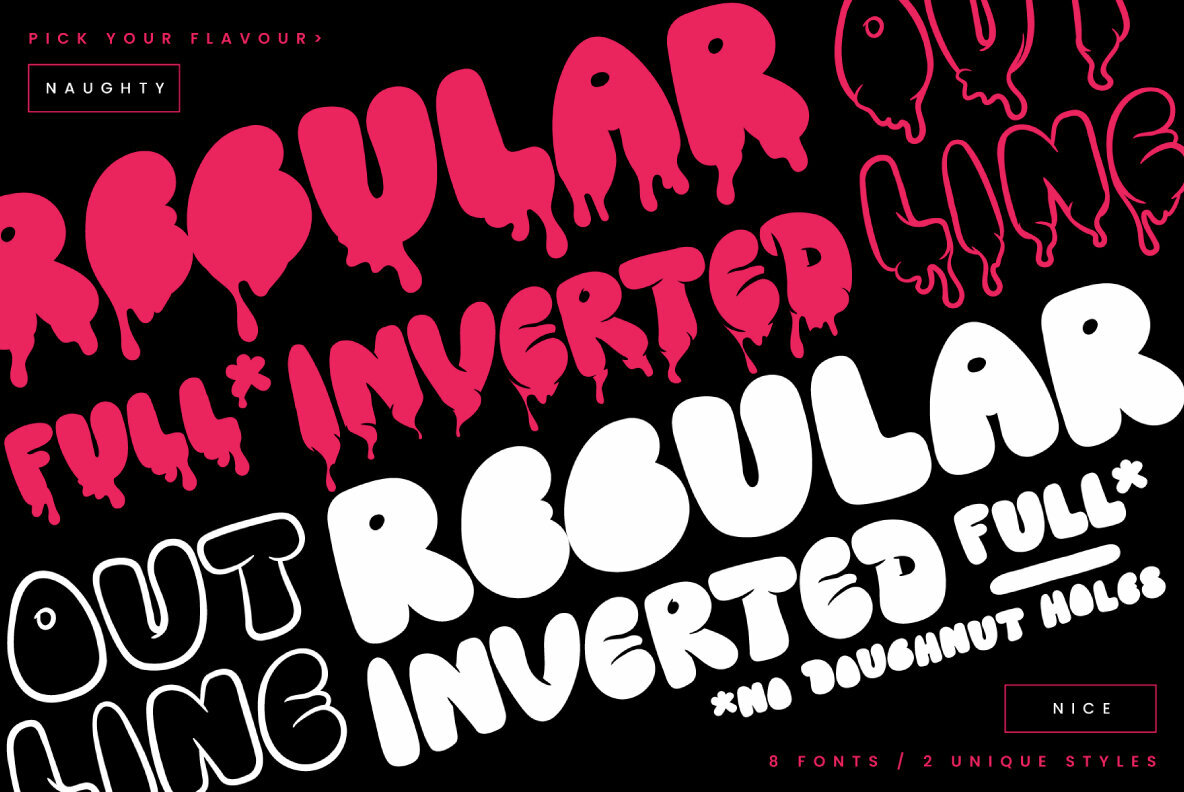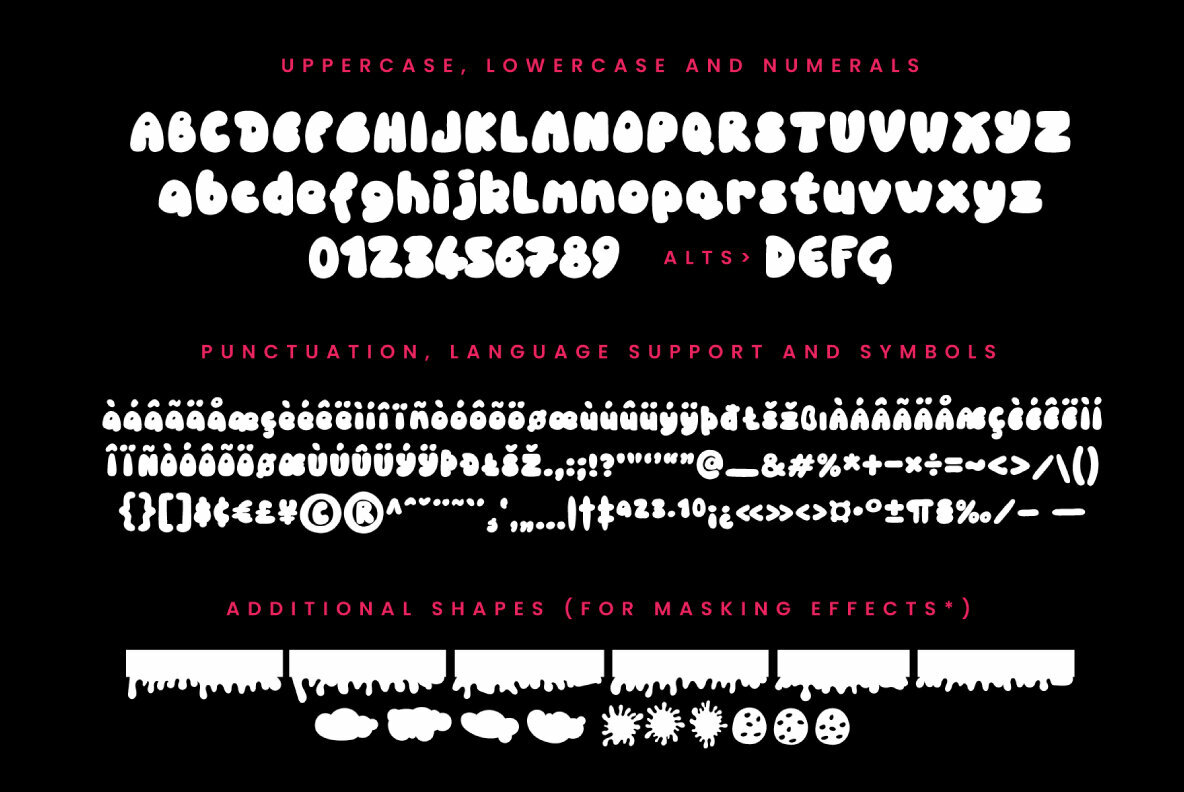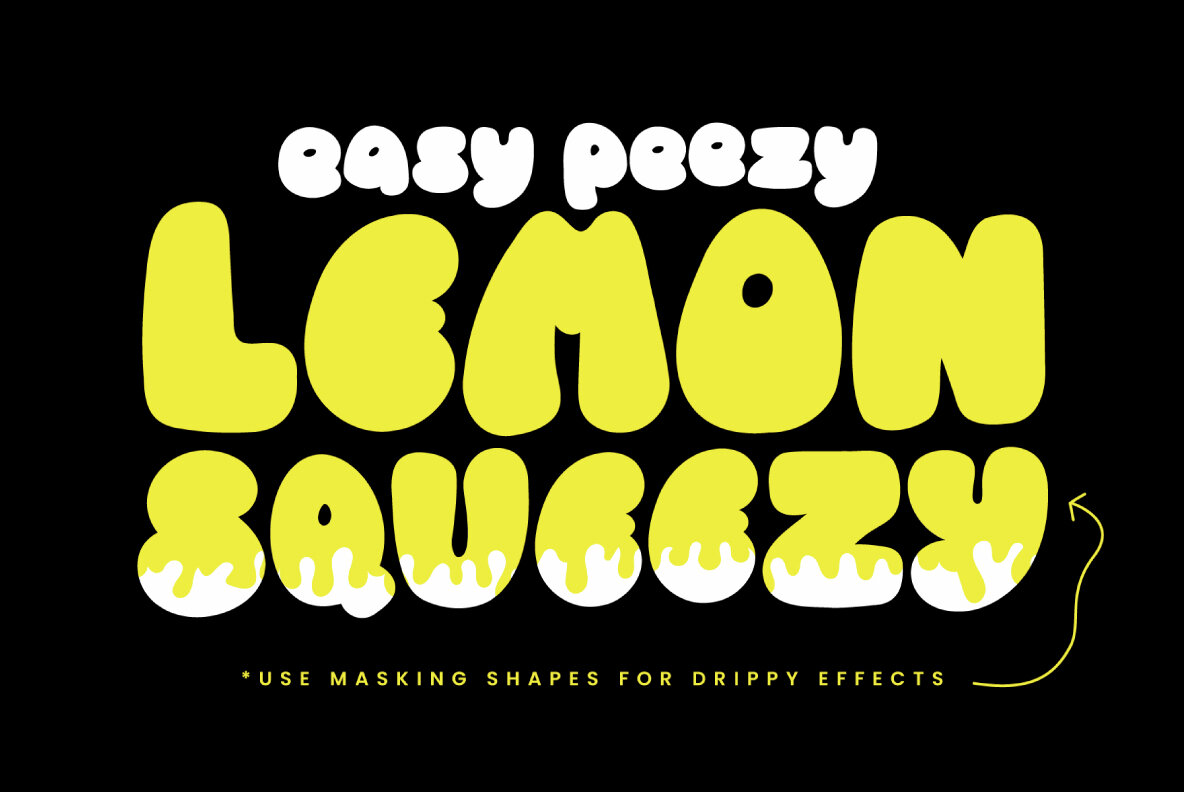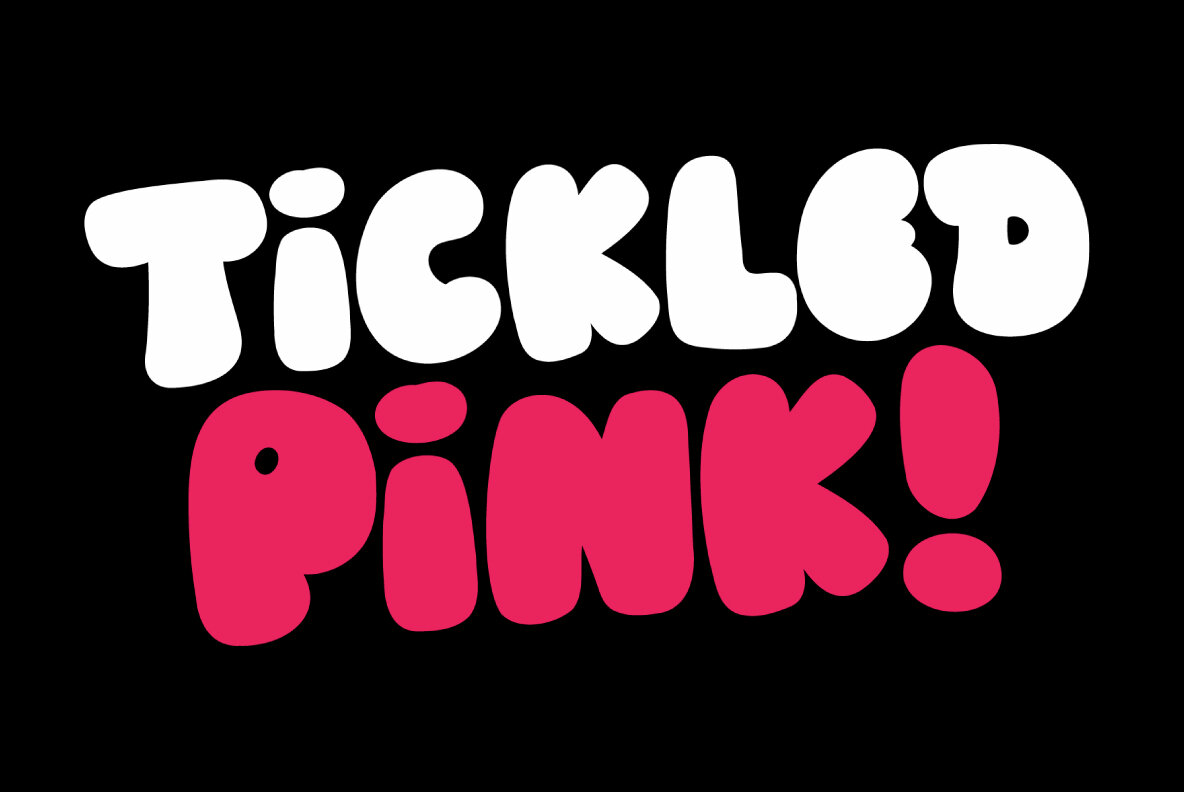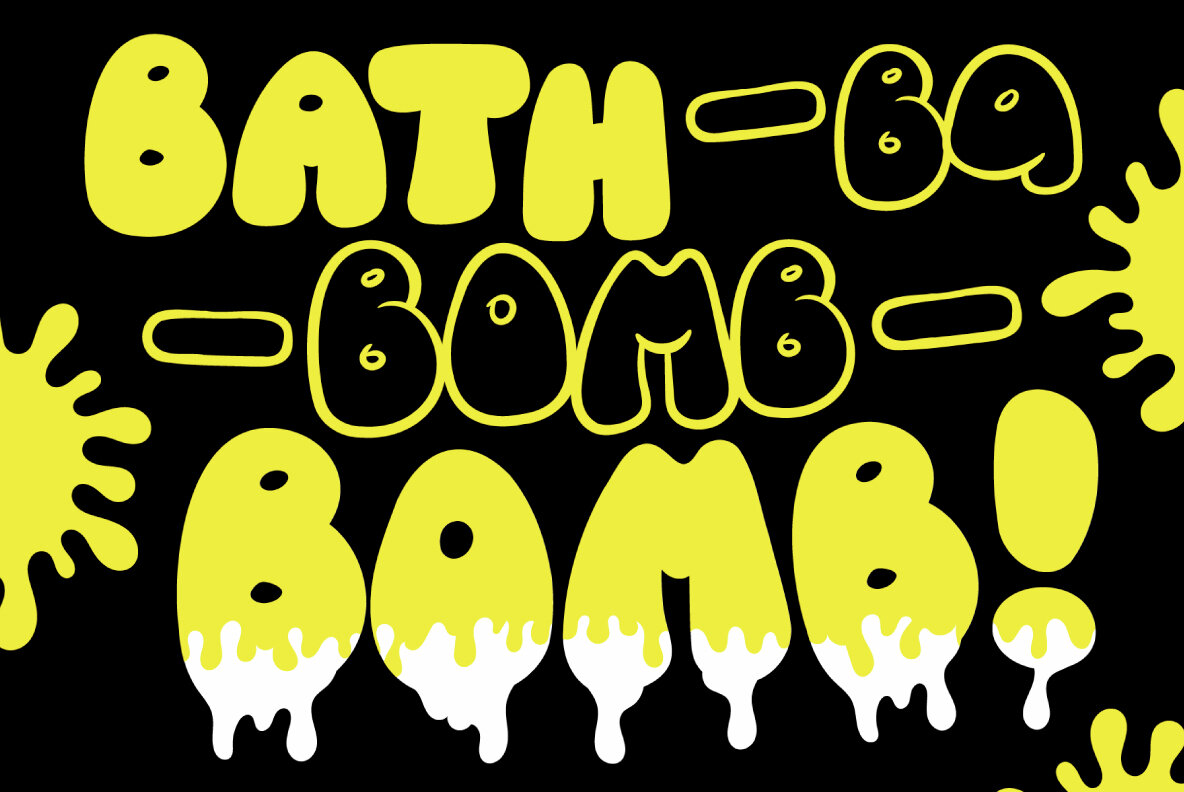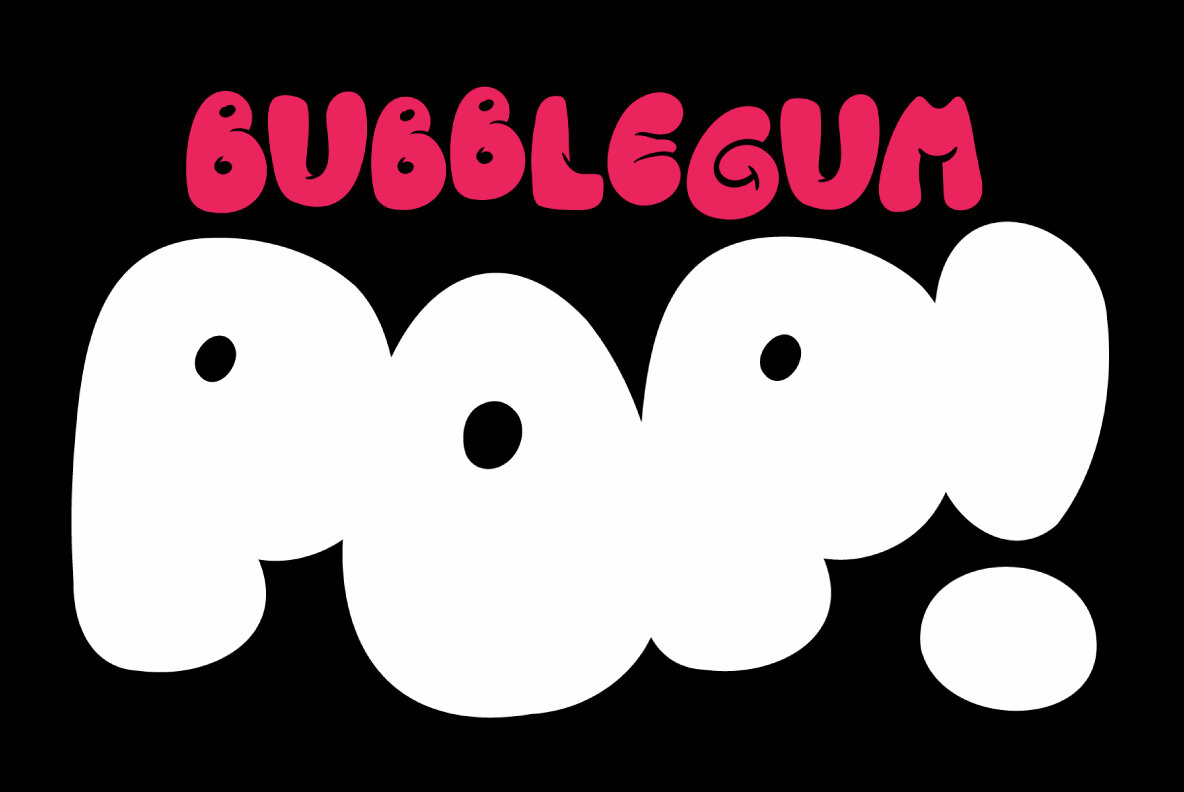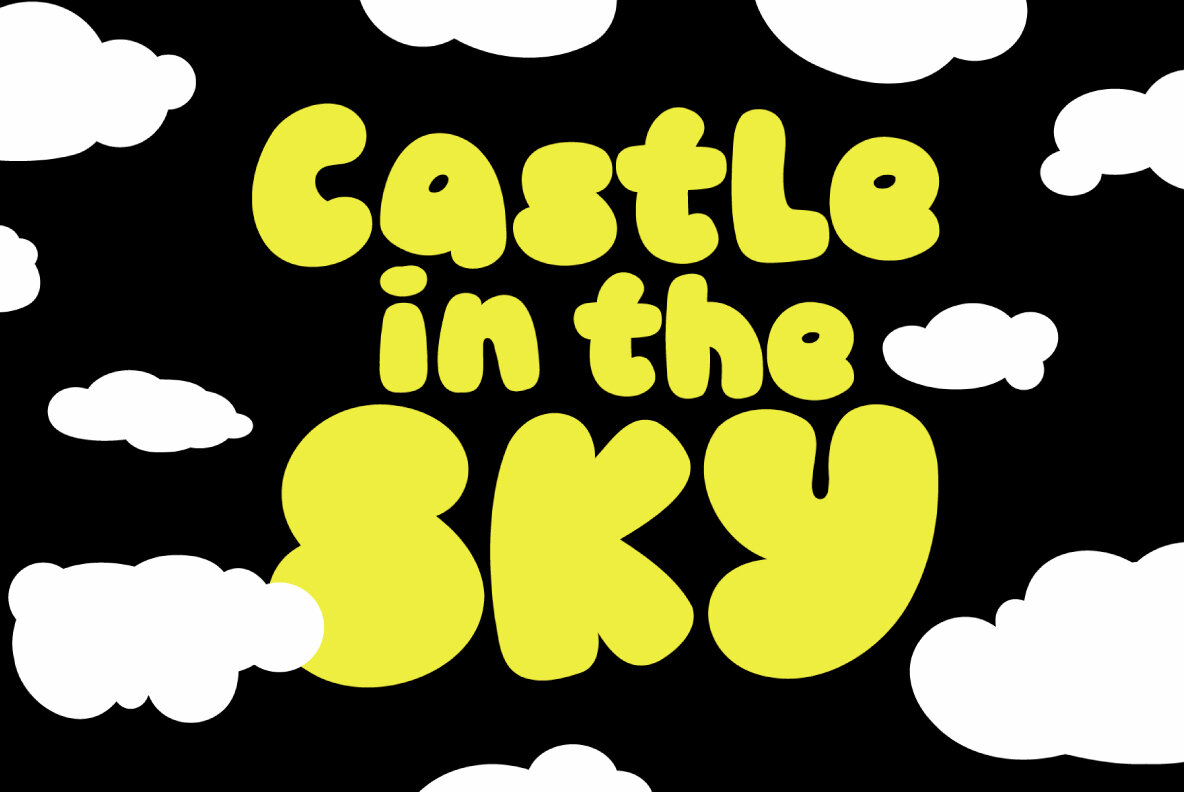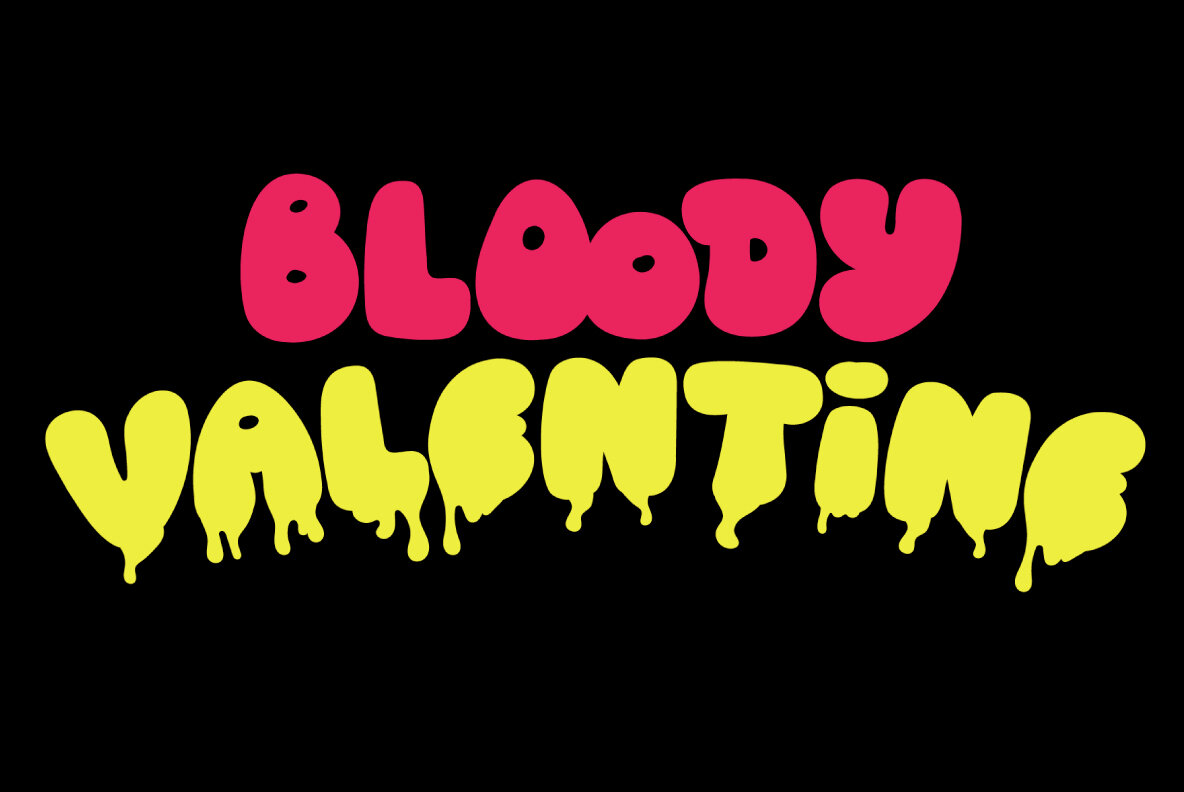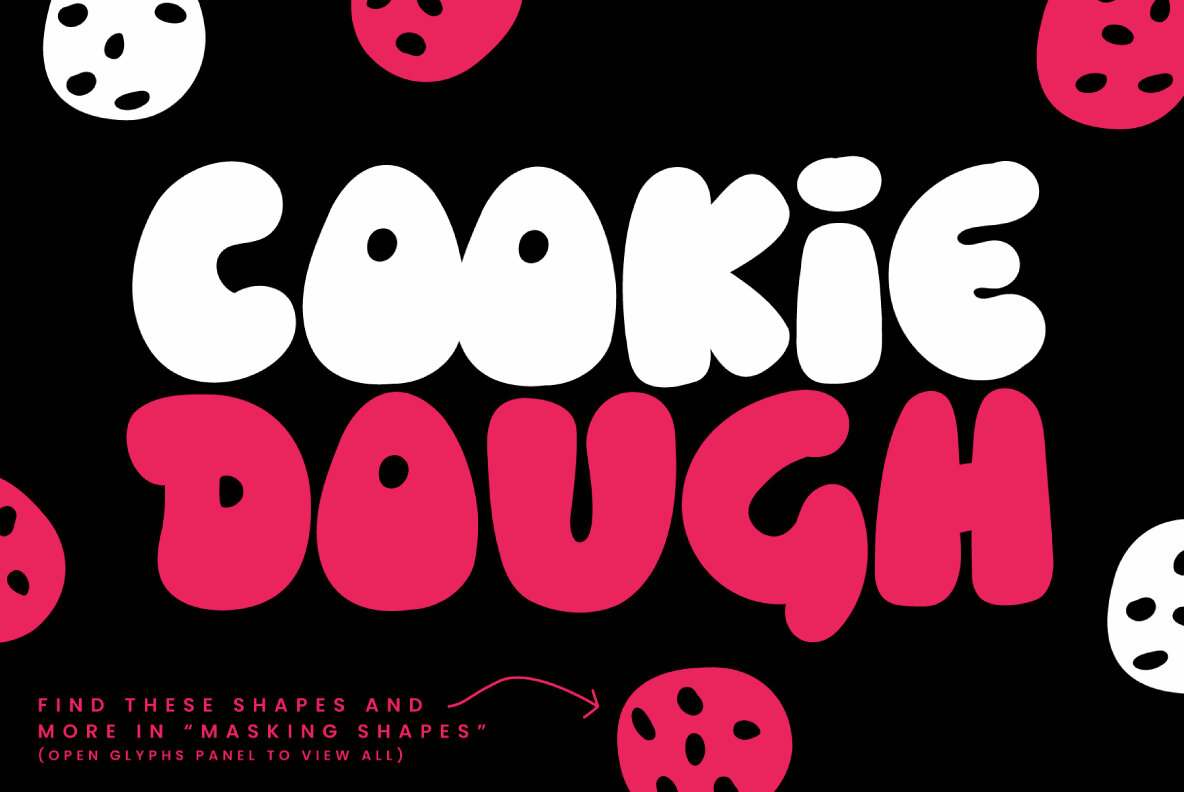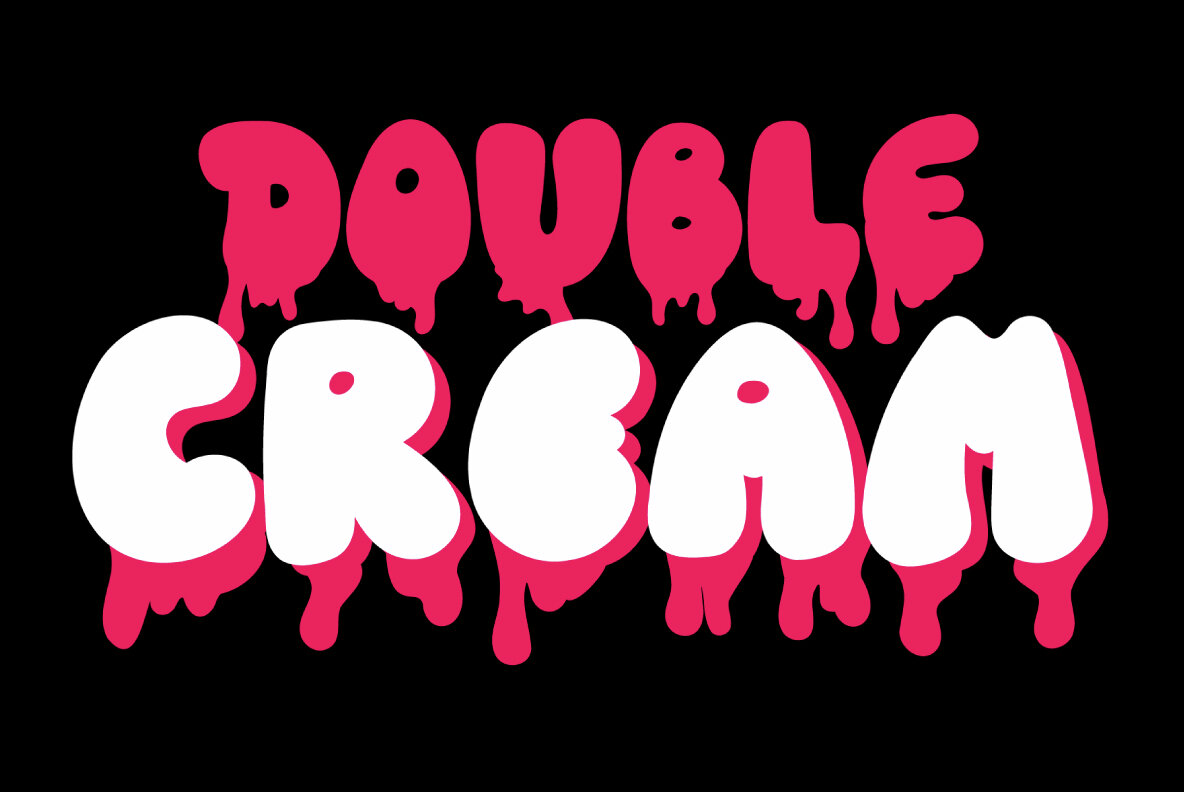
Nasty Habit Font
Imagine for a moment a font that’s ready to burst like well-chewed bubblegum, or maybe the same font could even be squeezed to juice like a lemon? Well that’s Nasty Habit; a seemingly harmless bubble font with 8 variations that can play both naughty and nice. With one style that acts like your friendly neighbourhood bubble font, and another that drips over your hands like melted ice-cream. Taking inspiration for comic book and graffiti style lettering, this bold design is versatile enough to work on everything from children’s books, to food packaging or horror movie posters. It also features a unique outlined version that offers an authentically hand-drawn look, along with further variations for countless options to play with. This Bubble font family includes a complete set of uppercase and lowercase characters, along with numerals, punctuation, symbols and language support. It also comes with selection of drippy shapes that I recommend using as masks for great effects within the letter shapes - see the visuals for details!